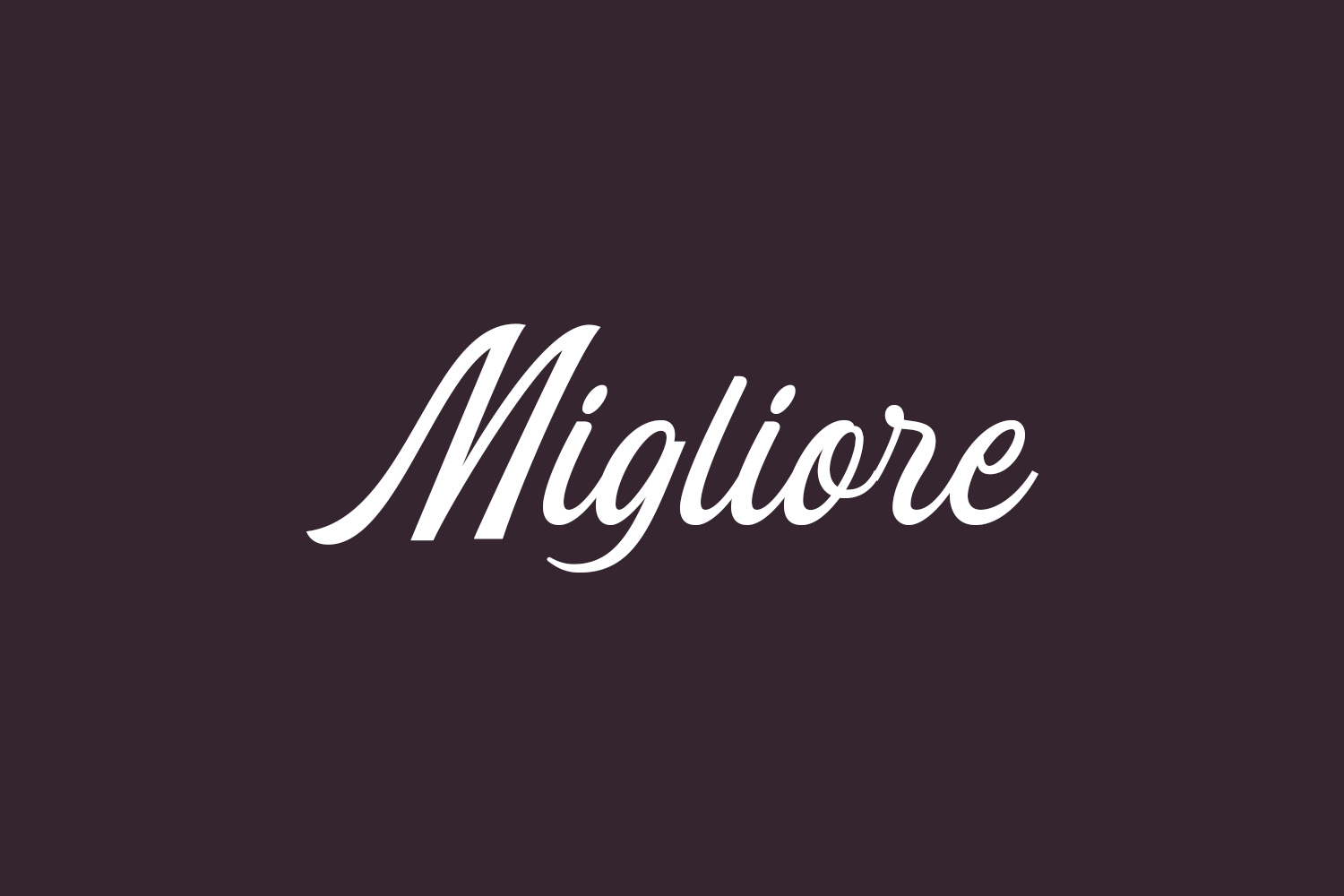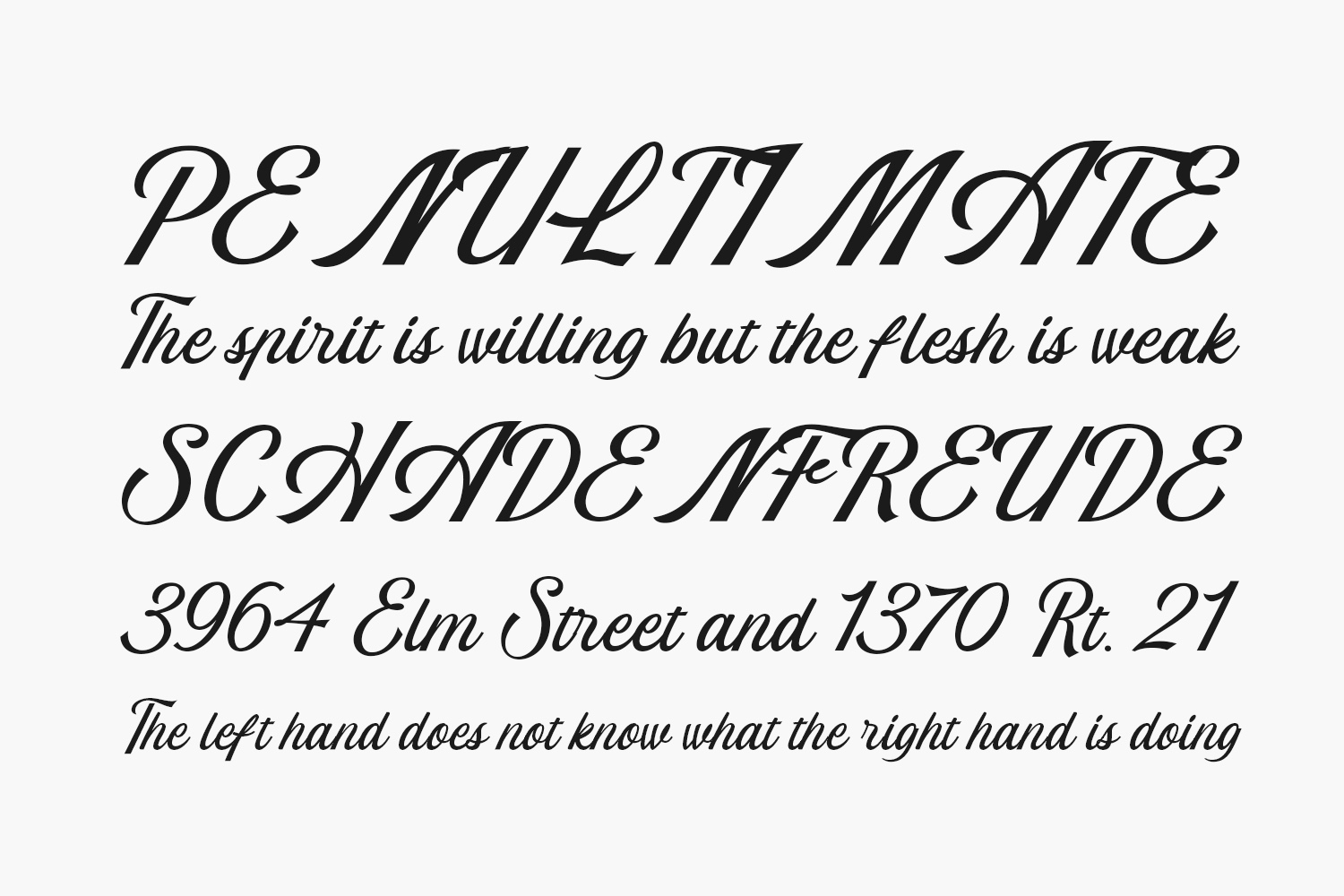
Discover the versatility and elegance of Migliore Free Font, a script font that effortlessly elevates any topic. This font is a valuable addition to your library, offering the potential to enhance and elevate the quality of any creative project. Migliore Free Font is free for personal use only. Please purchase the full version for commercial use.
Designed by Letterhend Studio